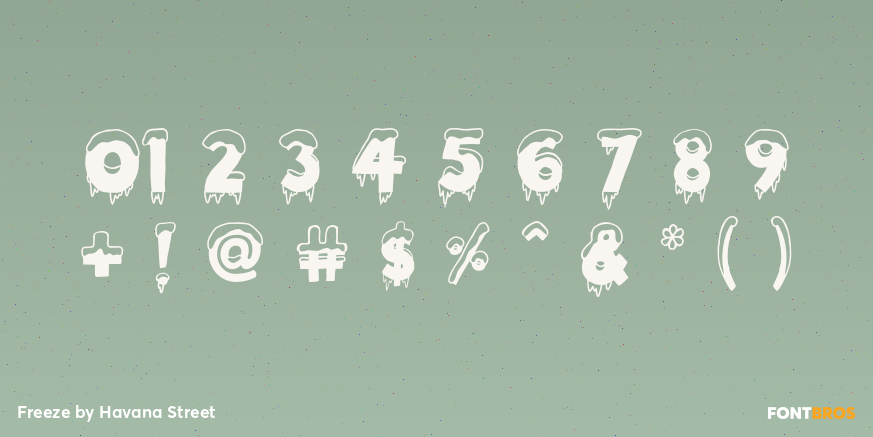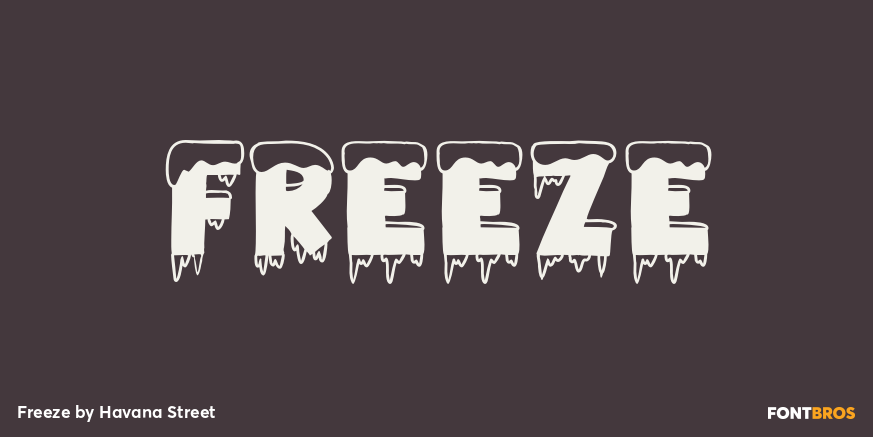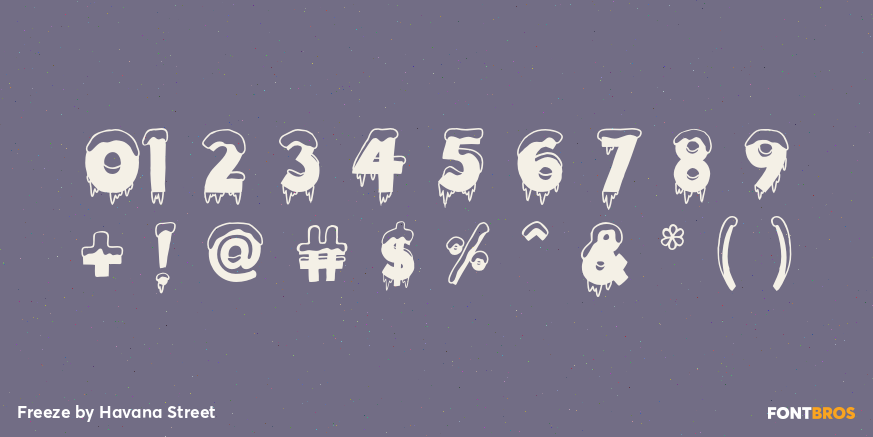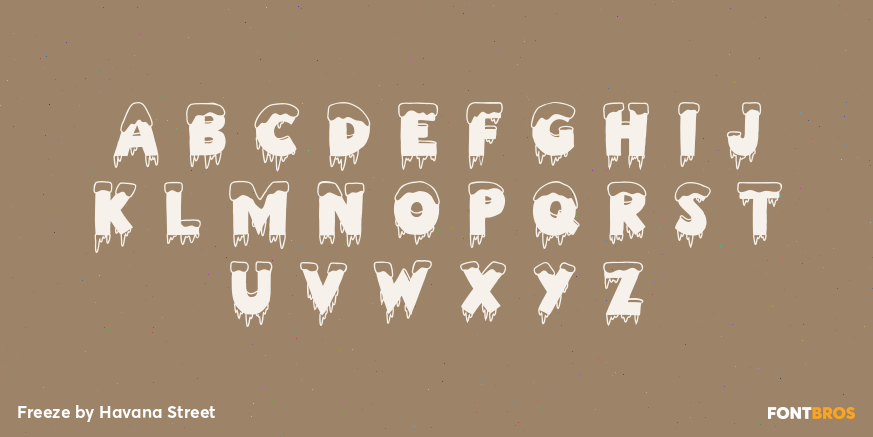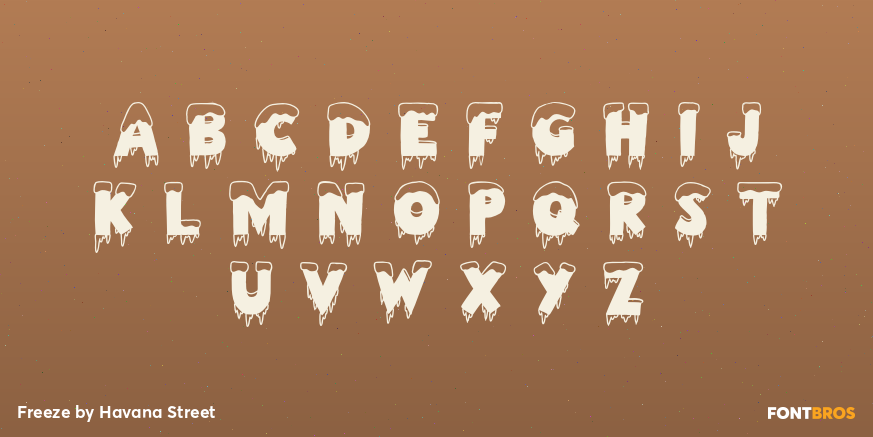
Freeze
Font Family by Havana Street
Previously available only from the hand of the artist, Havana Street has brought original 1940s style Hollywood hand-lettered, movie poster-type to your keyboard. Now you too can adorn your creations with these wonderfully gaudy fonts.